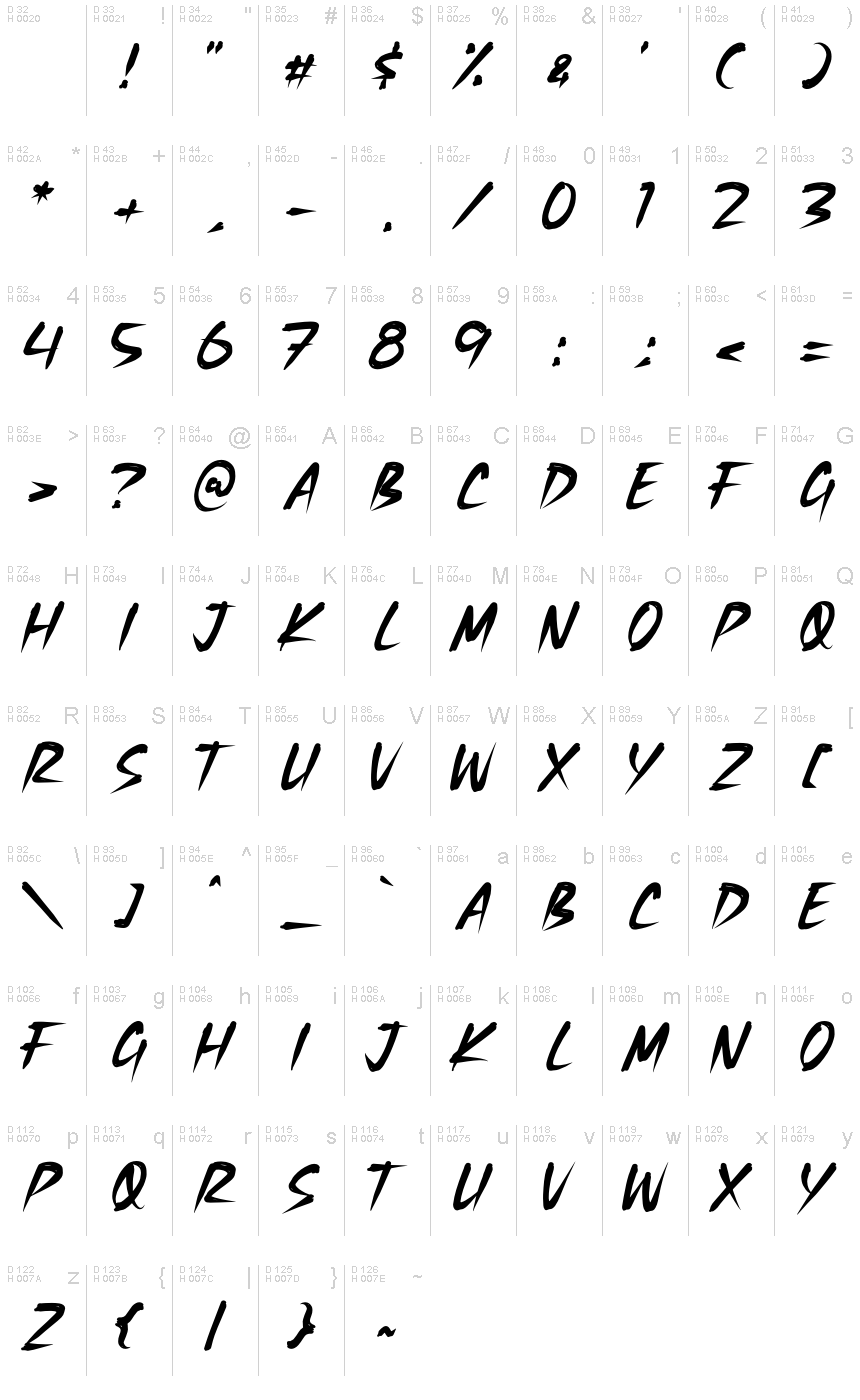
Duft Lacks, a captivating brush font from the creative minds at Letterena Studios, exudes an effortless elegance and dynamic energy. Its bold, sweeping strokes and organic fluidity evoke a sense of movement and artistry, making it a standout choice for projects seeking a distinctive, handcrafted aesthetic. The font's versatile nature allows it to seamlessly blend traditional and modern design elements, imbuing any text with a touch of sophisticated flair.
Duft Lacks' versatility shines through its ability to adapt to a wide range of design applications. From eye-catching headlines and impactful logotypes to expressive editorial layouts and captivating branding, this font's expressive qualities make it an ideal choice for projects that aim to capture attention and convey a sense of refined sophistication. Its dynamic nature also lends itself well to creative endeavors, such as book covers, poster designs, and social media graphics, where a bold and distinctive typographic treatment is desired.